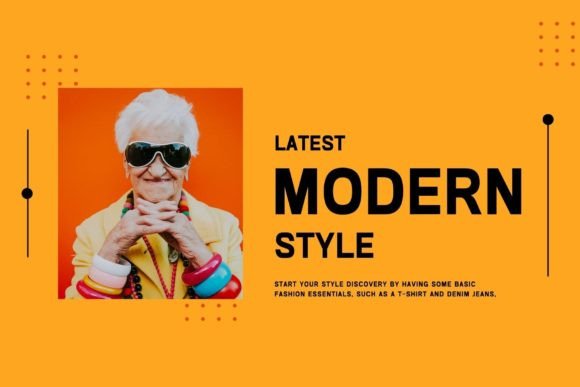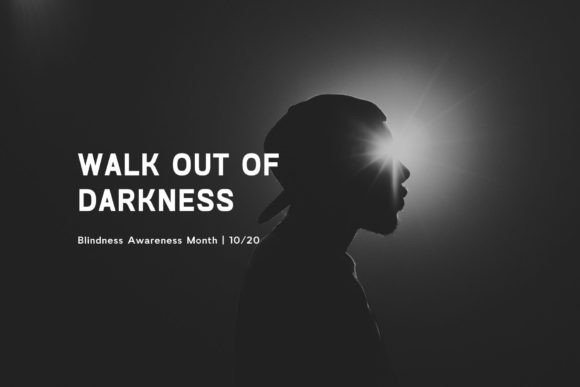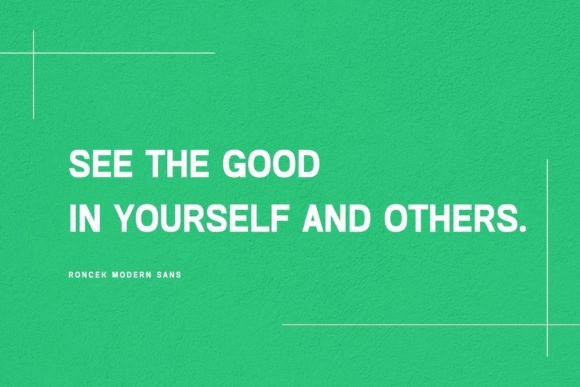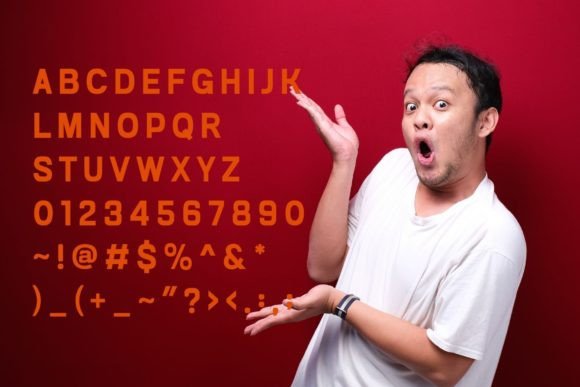
Introduction to Roncek Font
Introducing “Roncek,” a modern and bold sans-serif font that makes a confident statement in any design.
With its clean lines and contemporary aesthetic, Roncek is perfect for projects that demand sleek and impactful typography Whether you’re working on branding, headlines, or any design where clarity and modernity are key, Roncek delivers a bold and sophisticated presence.
Key Features of Roncek Font
Why Choose Roncek Font?